What Font Is For Parents is more than a style choice—it's a practical tool for supporting children’s reading and learning. This quick guide breaks down font decisions into clear, doable steps so you can apply them to homework sheets, storybooks, and screens without the guesswork.
What Font Is For Parents: A Practical Starter Guide
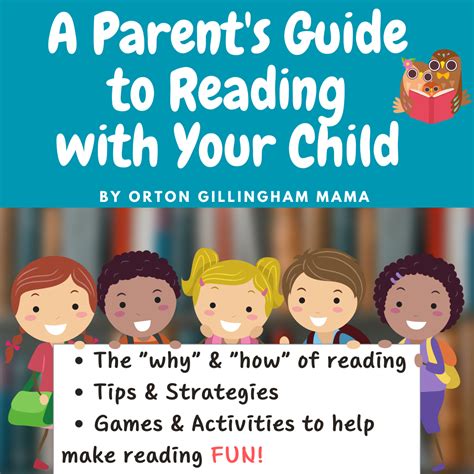
What Font Is For Parents answers common questions about typography in a family setting. The aim is to boost readability, reduce eye strain, and keep reading enjoyable for kids at different ages. By understanding a few basics, you can make informed choices for both print and digital materials.
Key Points
- Prioritize legibility by using clean letter shapes, proper spacing, and high contrast between text and background.
- Keep font families to 1–2 per document to maintain consistency and reduce cognitive load.
- Size and spacing matter: aim for comfortable reading sizes and a generous line height to support young readers.
- Test fonts with your child: ask them to read short passages and note which letters are easy to recognize.
- Consider accessibility options, including dyslexia-friendly fonts and adjustable text settings on devices.
Understanding font families and their uses
Fonts fall into broad families like serif and sans-serif. For beginners, sans-serif fonts (such as Arial or Verdana) are often easier to read on screens, while serif fonts can work well in print when paired with adequate size and spacing. For parents, choosing a primary font for materials and a supporting secondary font can provide a clean, consistent look without overwhelming the reader.
Practical tips for selecting fonts for home materials
Keep it simple and consistent. Use standard system fonts to ensure broad compatibility, avoid overly decorative typefaces for long passages, and test prints or device displays with your child. Don’t forget accessibility: high contrast, adjustable text size, and clear letter shapes make a noticeable difference.
Do fonts really affect my child’s reading speed?
+Yes. Fonts with simple shapes, clear letter differentiation, and proper sizing can help kids recognize words more quickly and reduce visual fatigue. Consistency and sufficient spacing also support smoother reading flow.
<h3>Which font should I use for children's worksheets?</h3>
<p>For worksheets, choose a clean sans-serif font for on-screen use or a readable serif for print. Limit to 1–2 fonts per document, ensure adequate size, and test with your child to verify letter shapes are easy to discern.</p>
<h3>What about font size and line height for early readers?</h3>
<p>Start with 12–14 pt for print or 16–20 px for digital text, and use a line height around 1.2–1.5. Adjust based on age and device, and consider a little extra spacing to reduce crowding between lines.</p>
<h3>Is there a difference between serif and sans-serif for kids?</h3>
<p>Sans-serif often helps beginners with quick letter recognition, especially on screens. Serif can support word recognition in print. The best approach is to test with your child and keep font usage consistent across materials.</p>